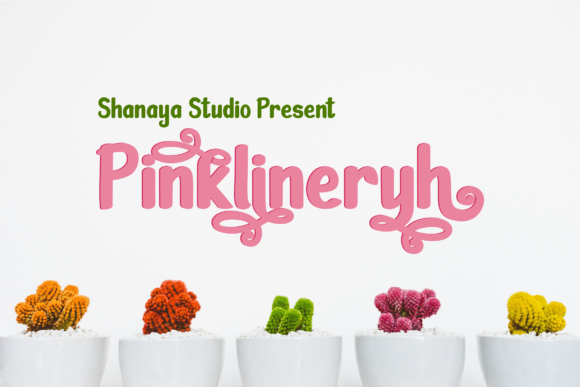
Pinklineryh Font
Embrace the enchanting world of Pinklineryh, a display font family that radiates cuteness and softness like never before. Each character dances across the canvas with playful swashes that command attention, inviting you to weave tales of whimsy and charm.
Crafted by the imaginative minds at Shanaya Creative, Pinklineryh is more than just a font; it's a gateway to a realm where creativity blooms and dreams take flight. Its delicate lines and captivating curves evoke a sense of nostalgia, reminding you of the carefree days of childhood and the boundless possibilities that lie ahead.
With Pinklineryh, you possess the power to transform ordinary words into extraordinary expressions. Whether you're crafting social media posts that pop, designing eye-catching logos, or creating heartfelt invitations, this font will elevate your creations to new heights. Its versatility knows no bounds, allowing you to express your unique style and enchant your audience with every stroke.
Indulge in the charm of Pinklineryh and let your imagination soar. This font is not merely a tool; it's an invitation to embrace the boundless power of creativity and create something truly unforgettable.